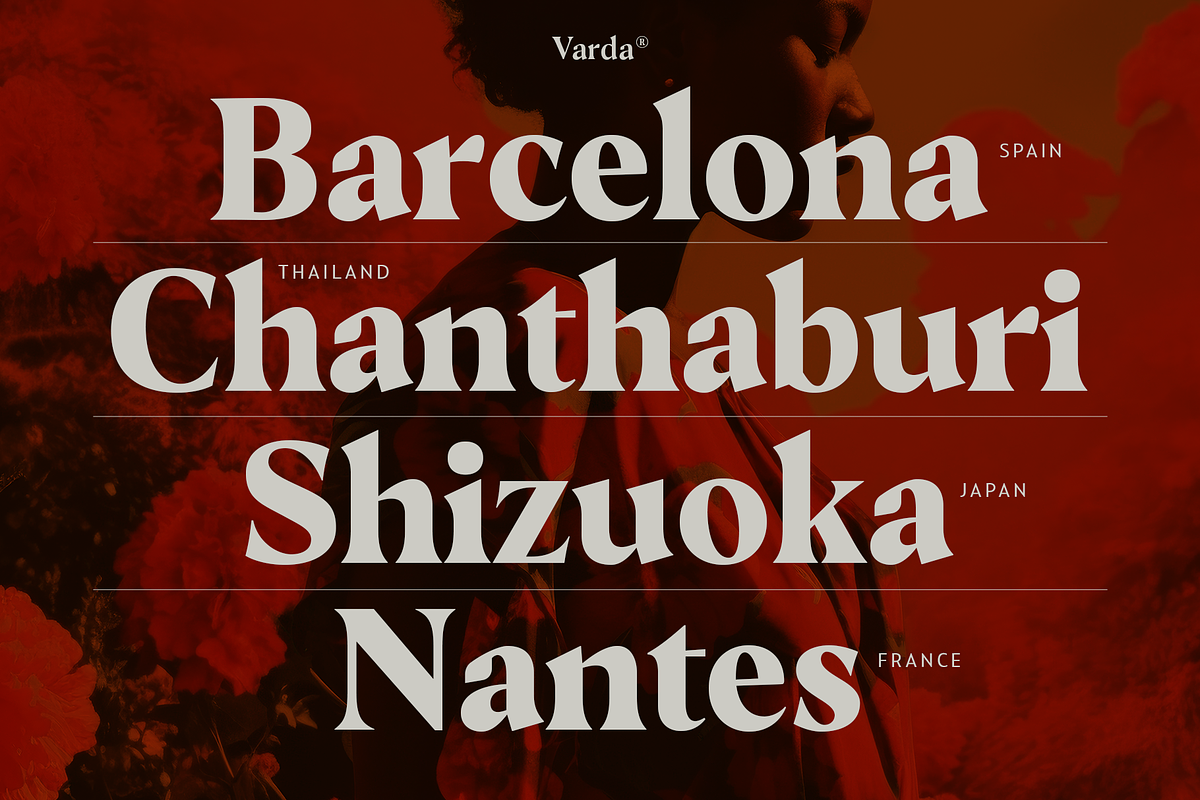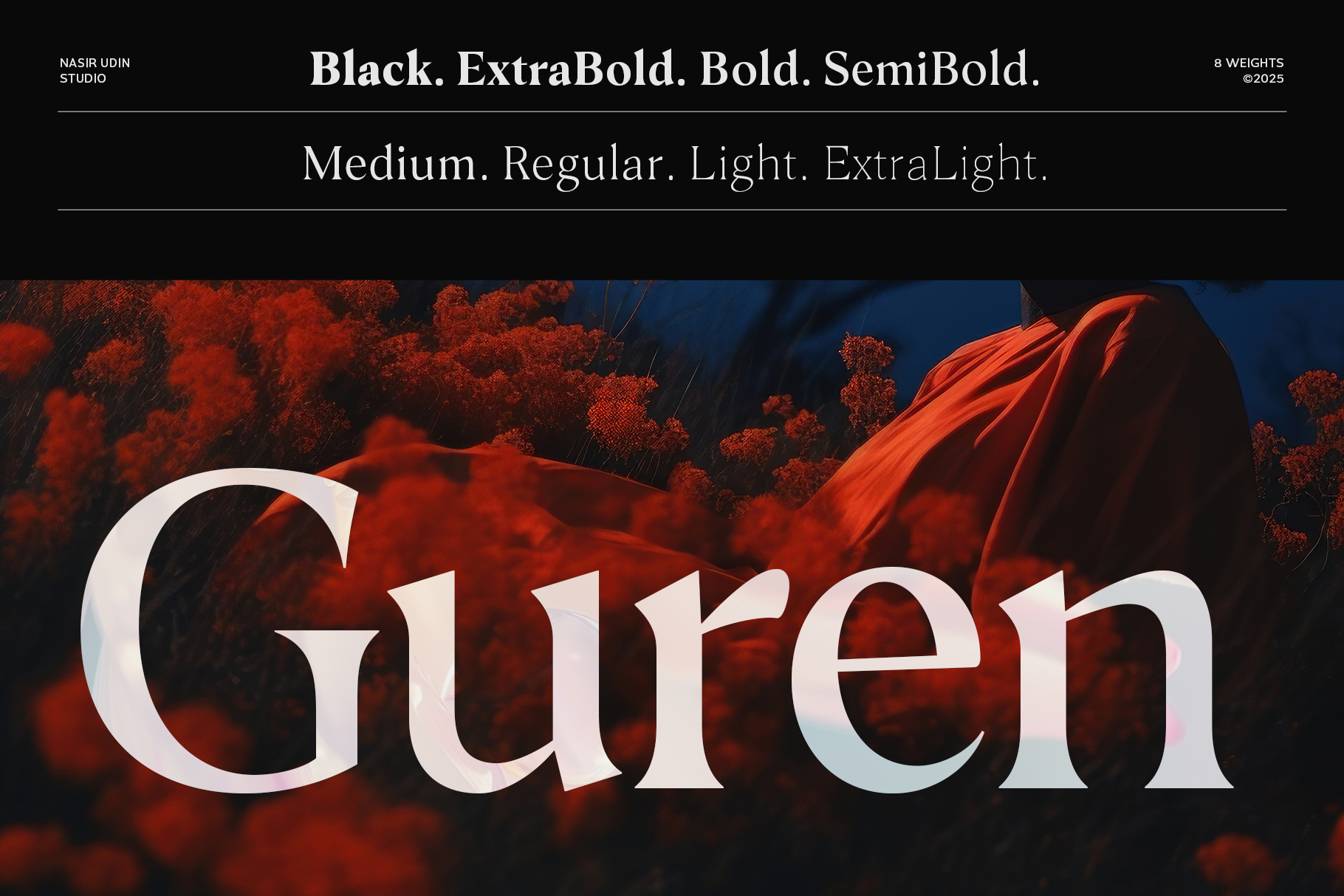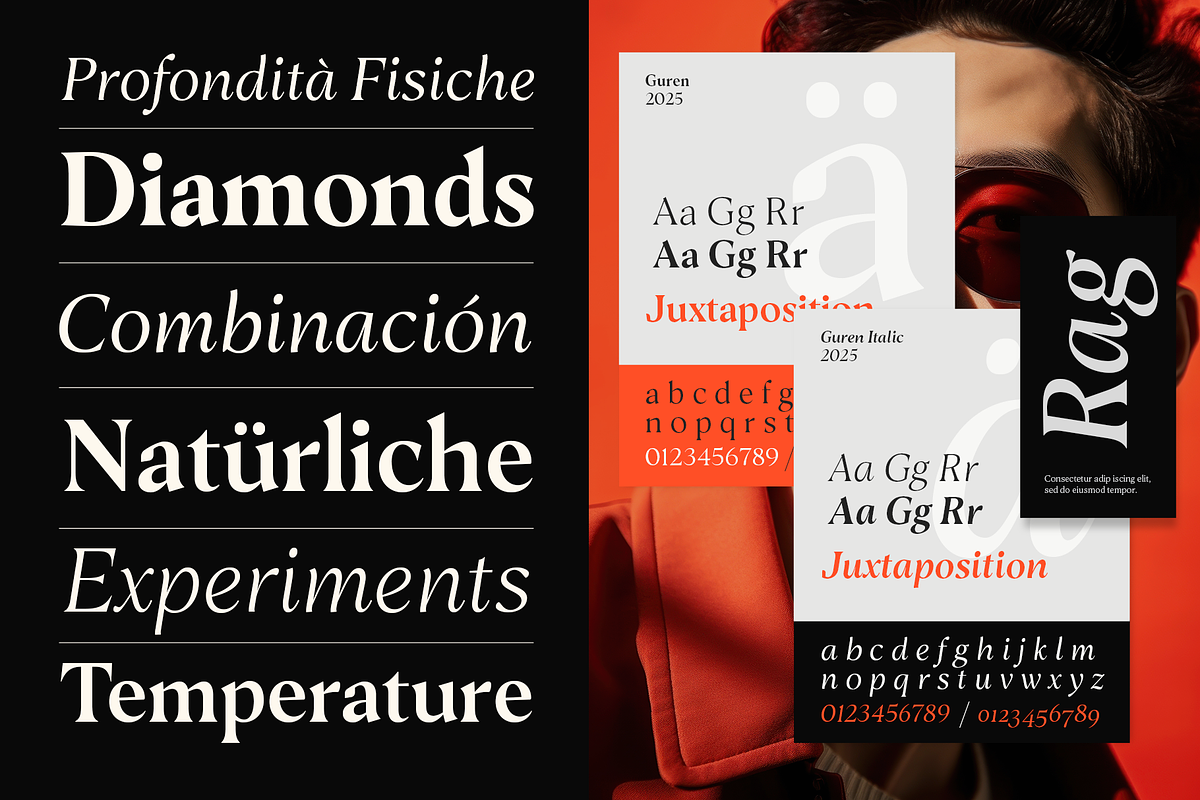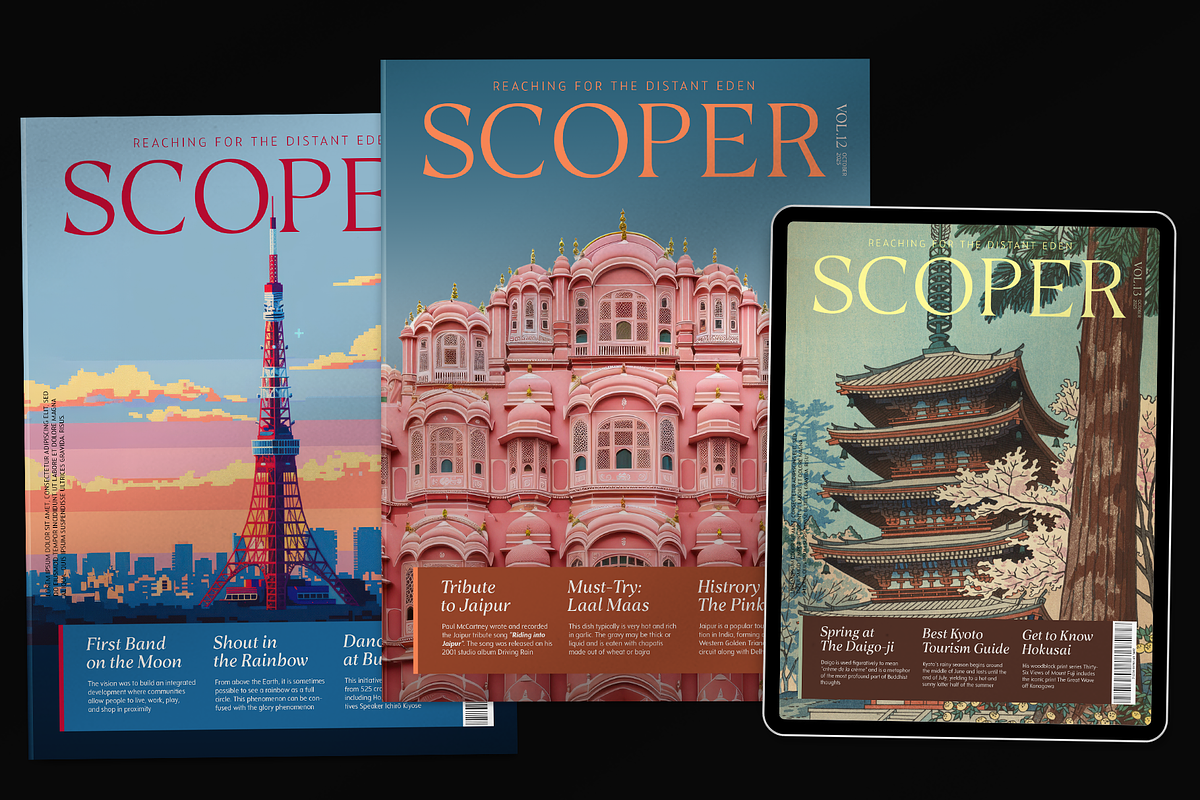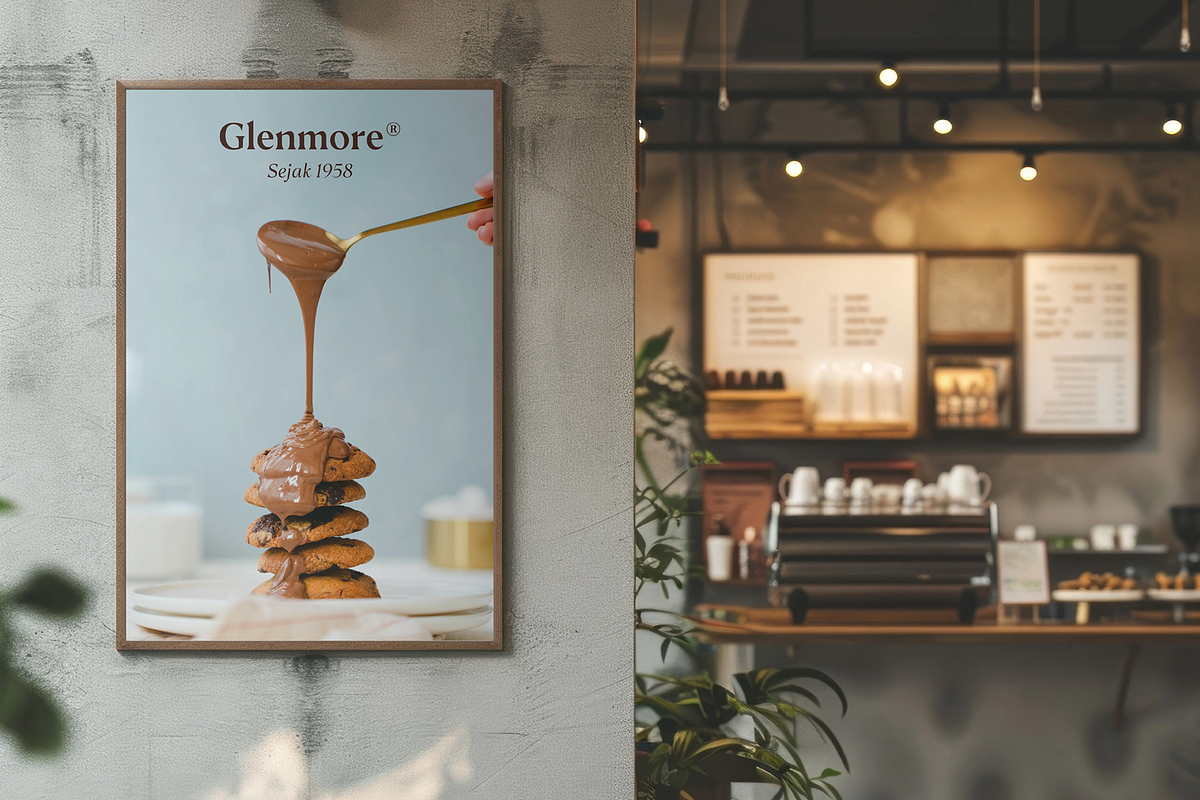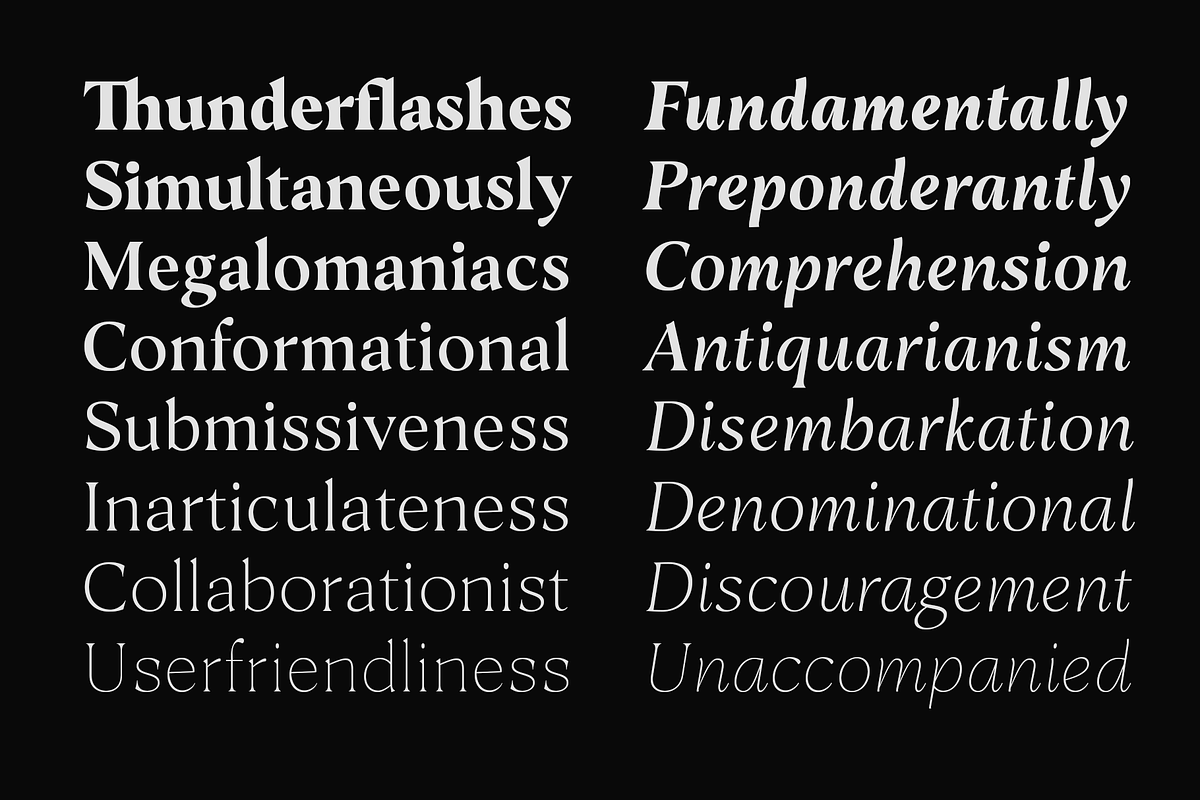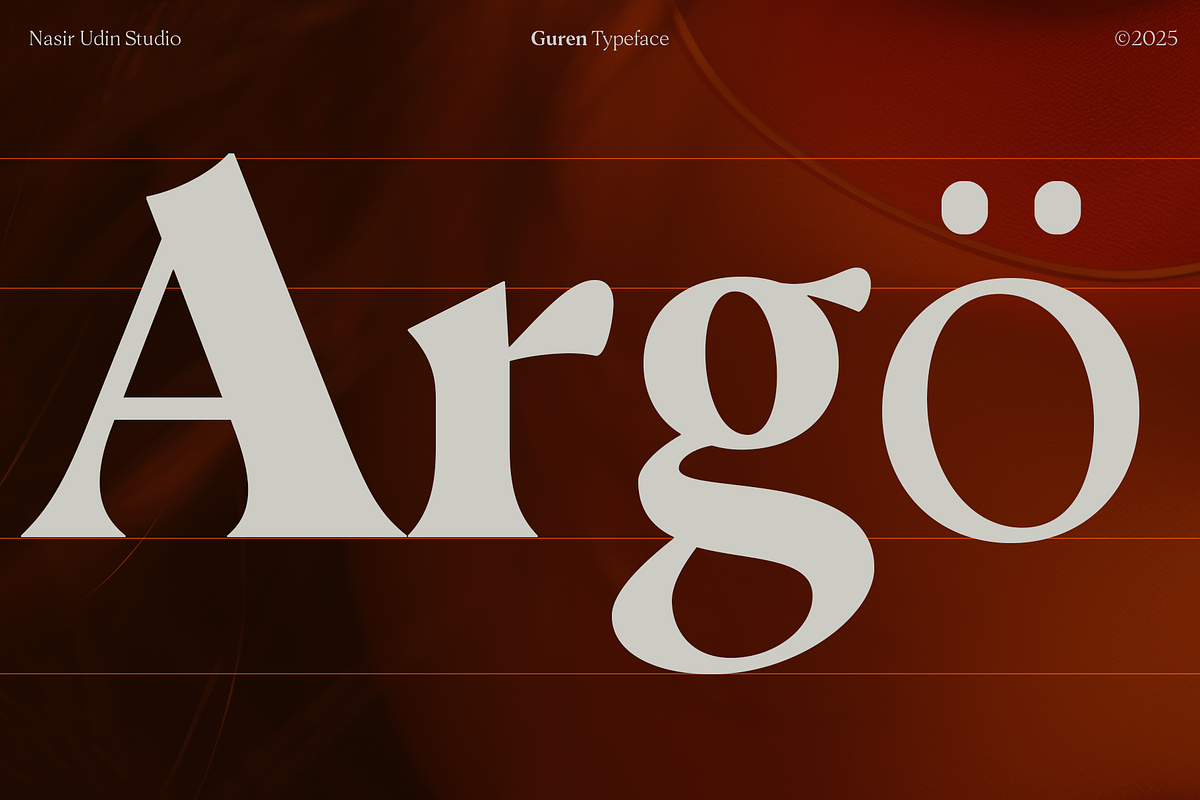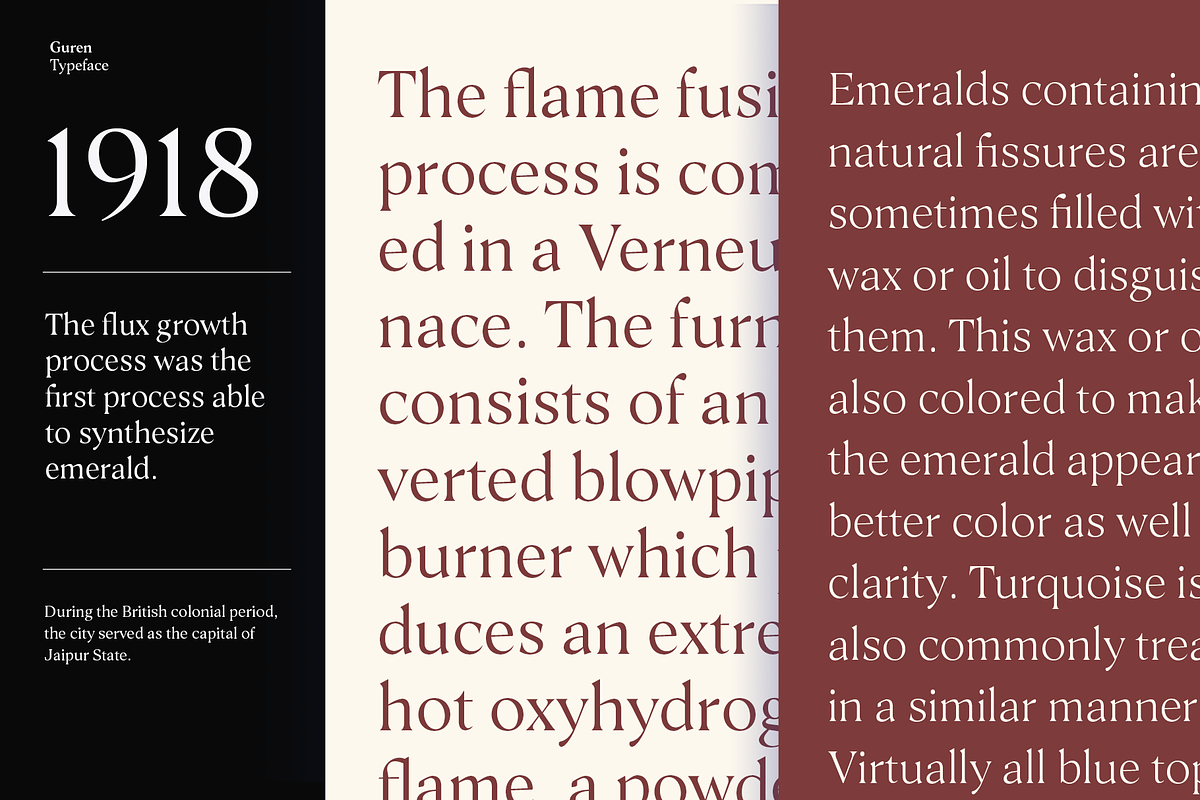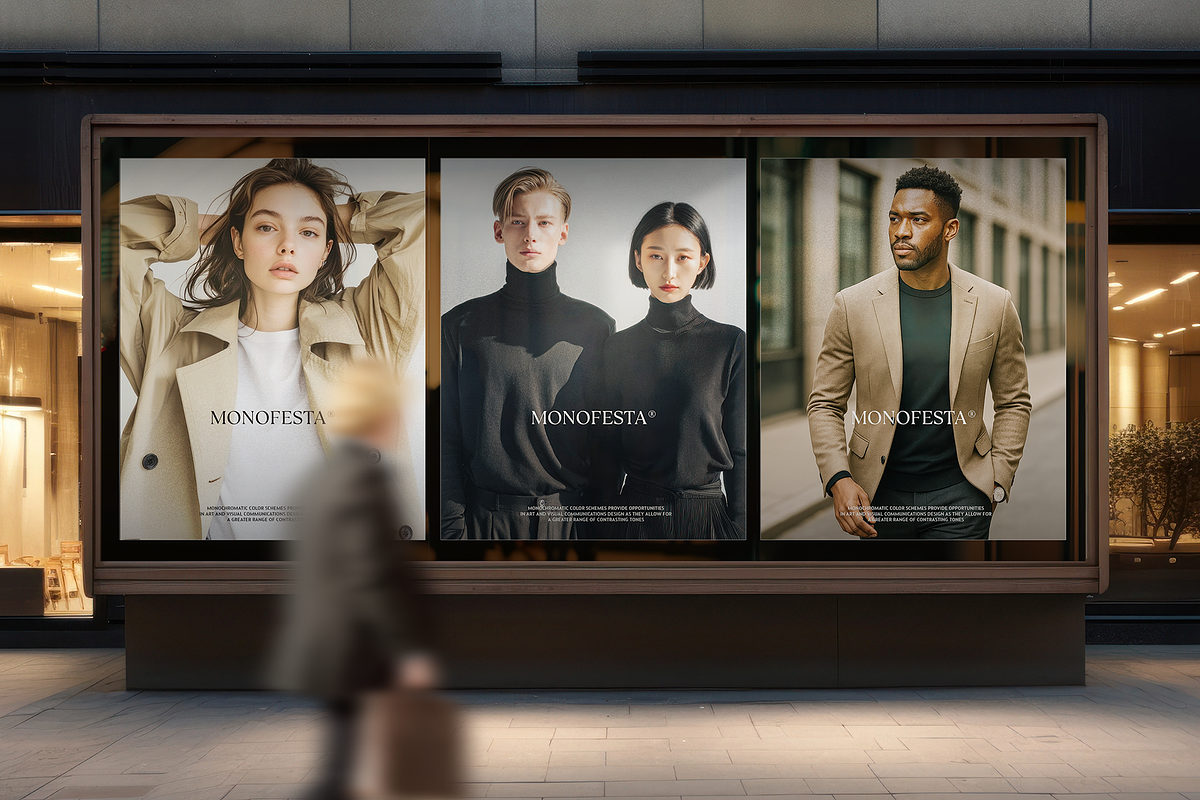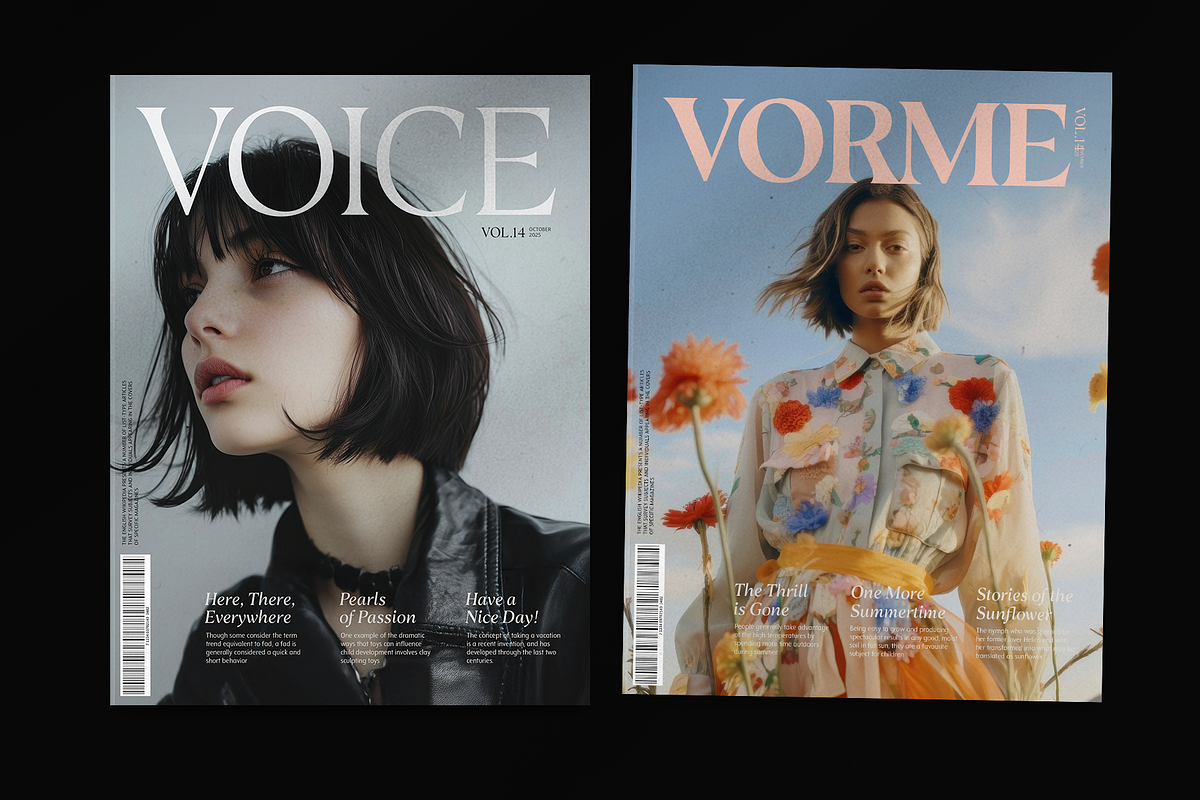
Guren - 16 Fonts
Guren is a modern flared serif font family inspired by transitional and contemporary typefaces. It has been designed with high-contrast stem ratio to give an elegant touch, and high x-height to give sentences more legibility.
Guren has 16 styles in 8 weights with its matching italics. Ranging from ExtraLight to Black, Guren offers many possibilities to be applied in many graphic or editorial projects. Also thanks to the extended latin characters set so that Guren supports 200+ latin-based languages. Guren is a great choice for headline, branding, titles, or short paragraphs.